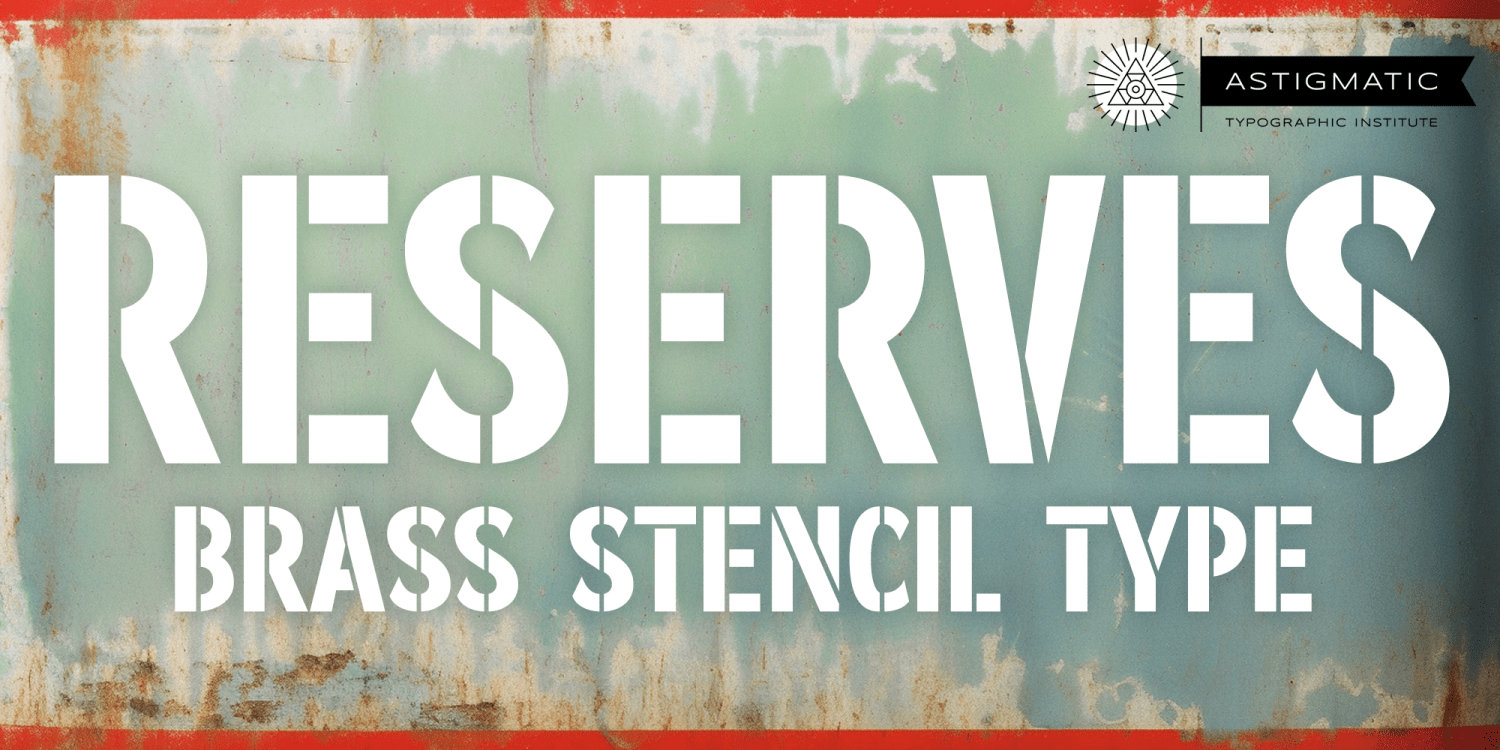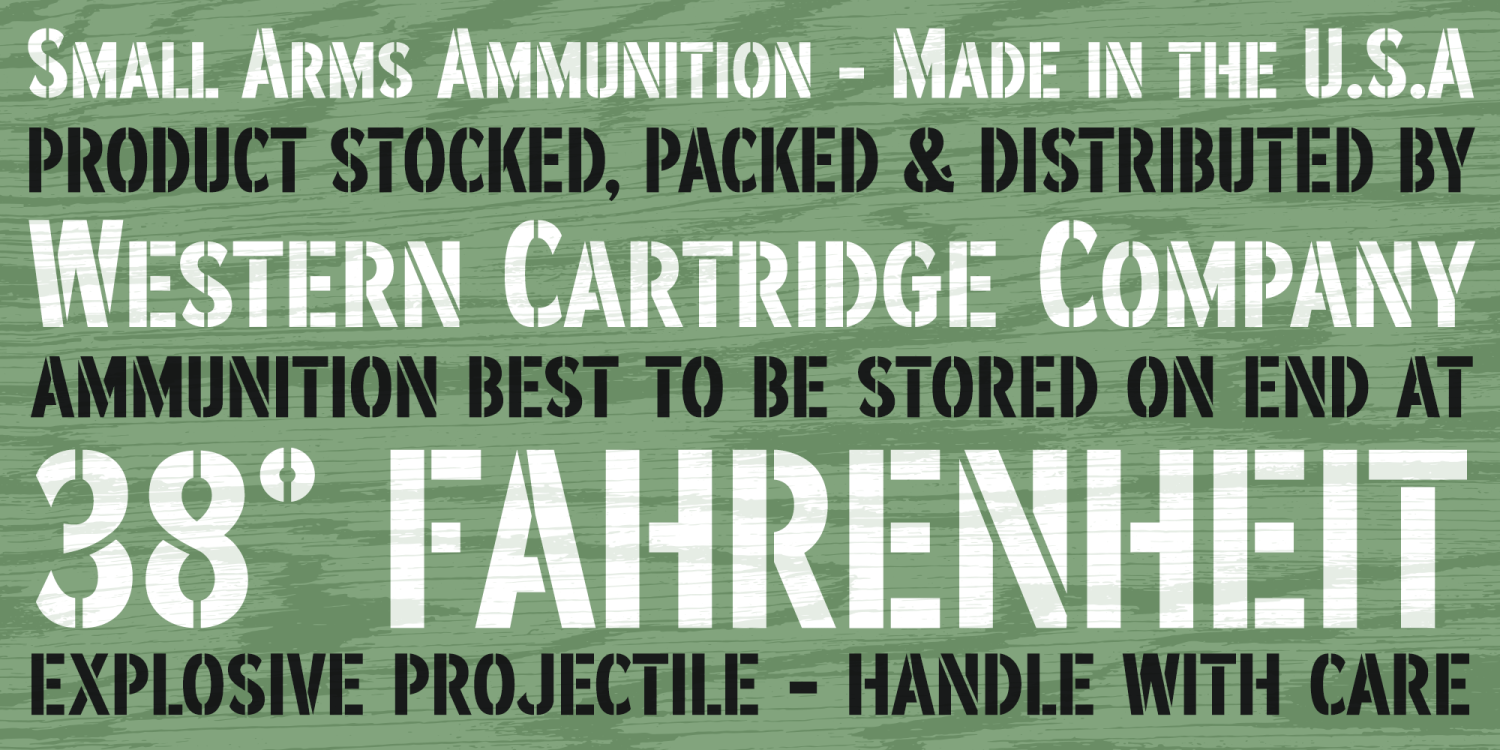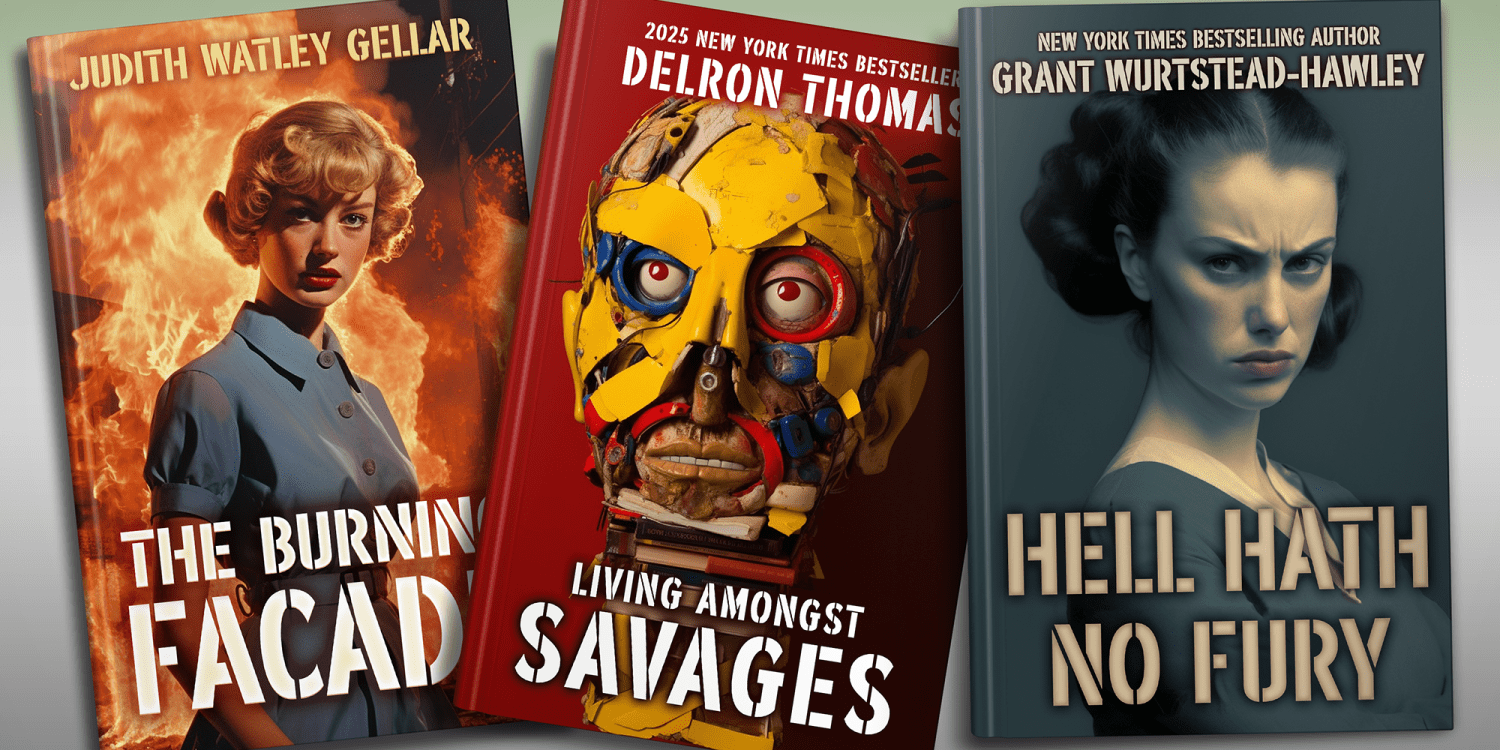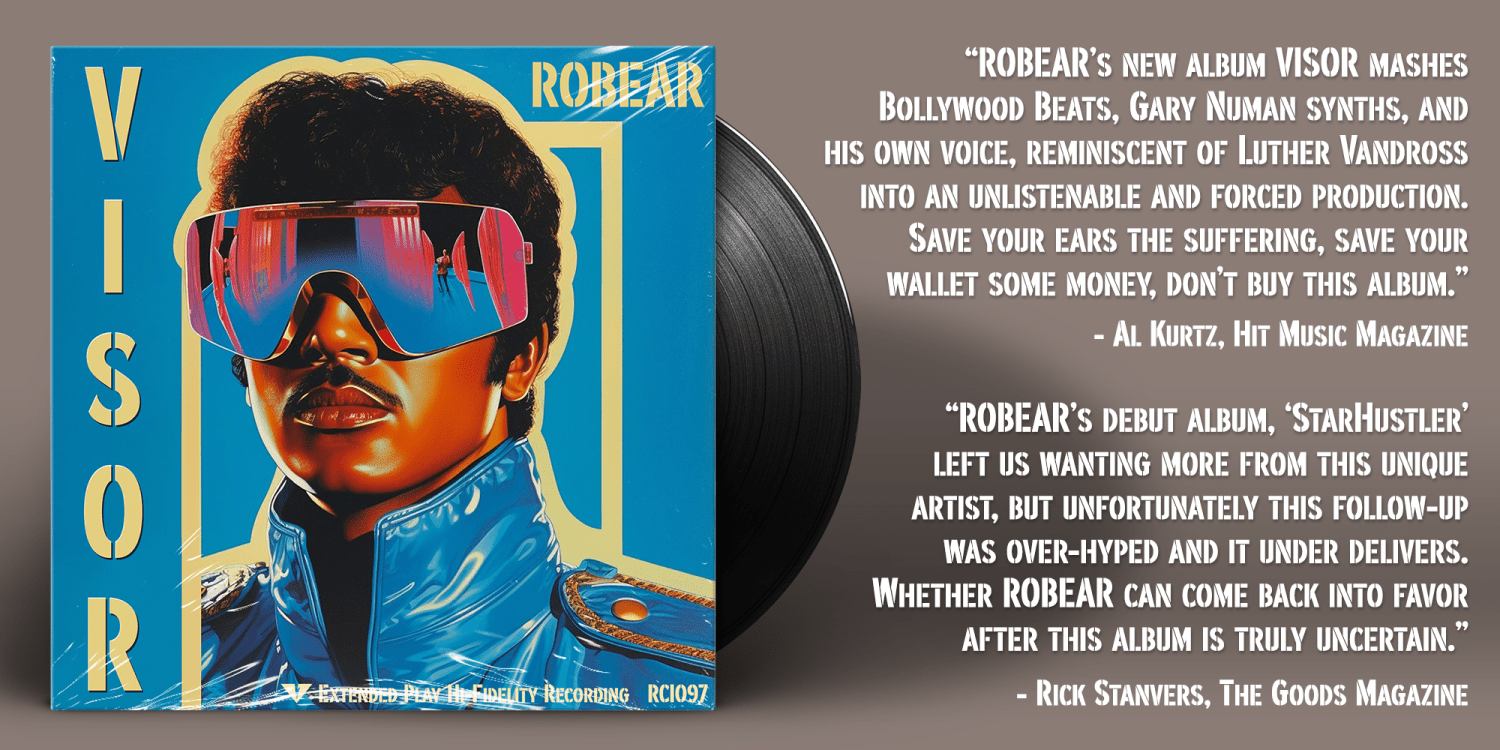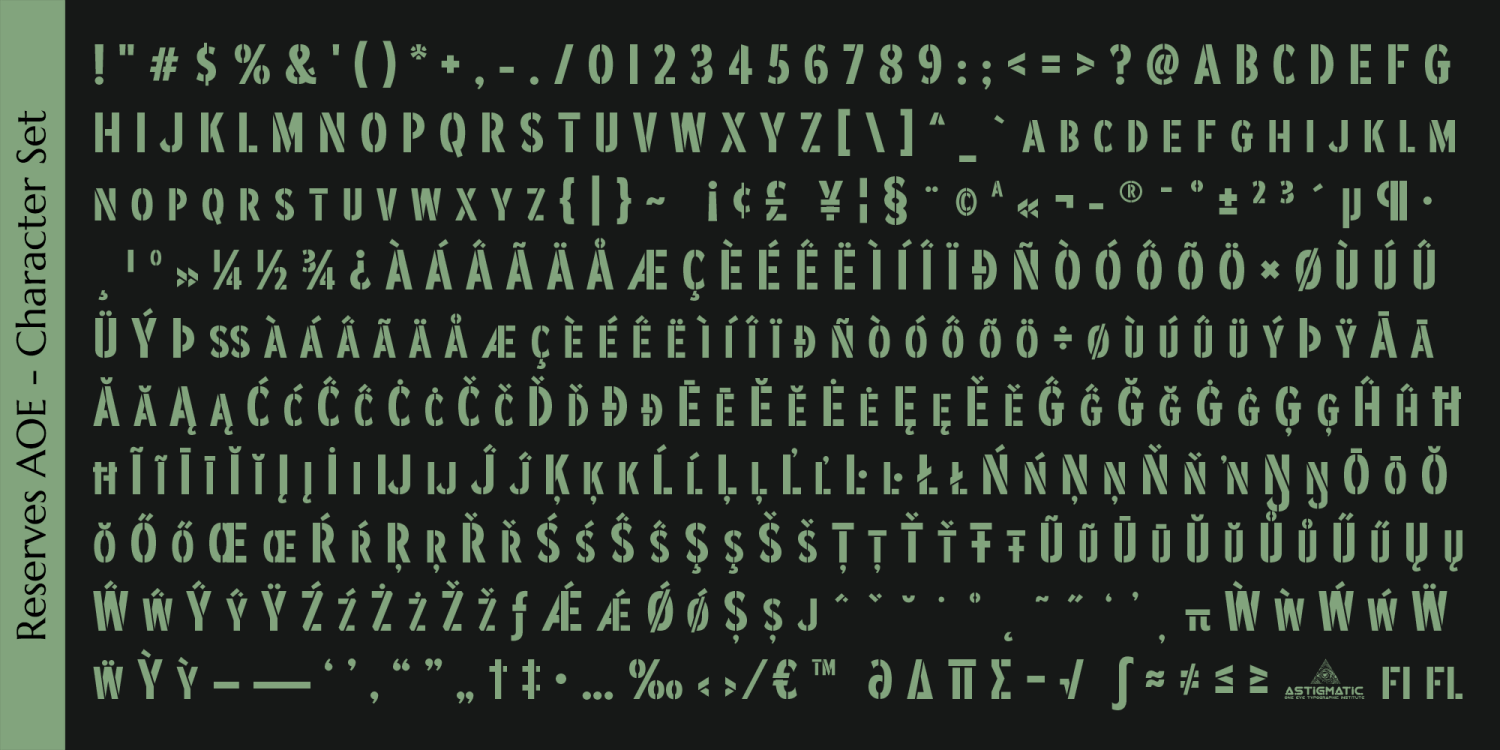
Reserves AOE
Font Family by Astigmatic One Eye
Reserves AOE was inspired and expanded upon a vintage book that featured a sample of brass stencil lettering for shipping crates. It embodies everything from military vibes to exit signage to road stencils and more. It's condensed width and subtle cuts and letter nuances, along with the smallcaps set (in the lowercase slots), give Reserves AOE a feeling of formality, structure, strength, and poise. Perfect for movie posters, book covers, signage, logotypes and titling, you'll find this typeface is fun to work with and appealing to look at.